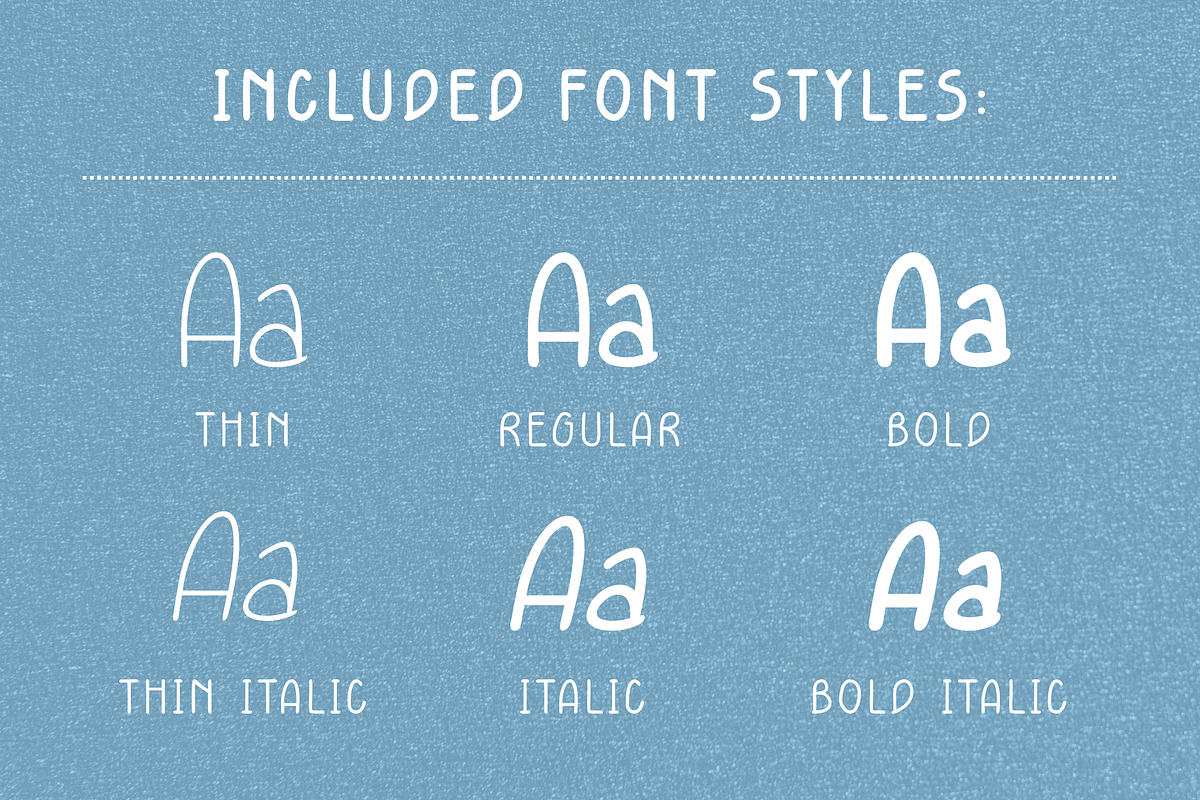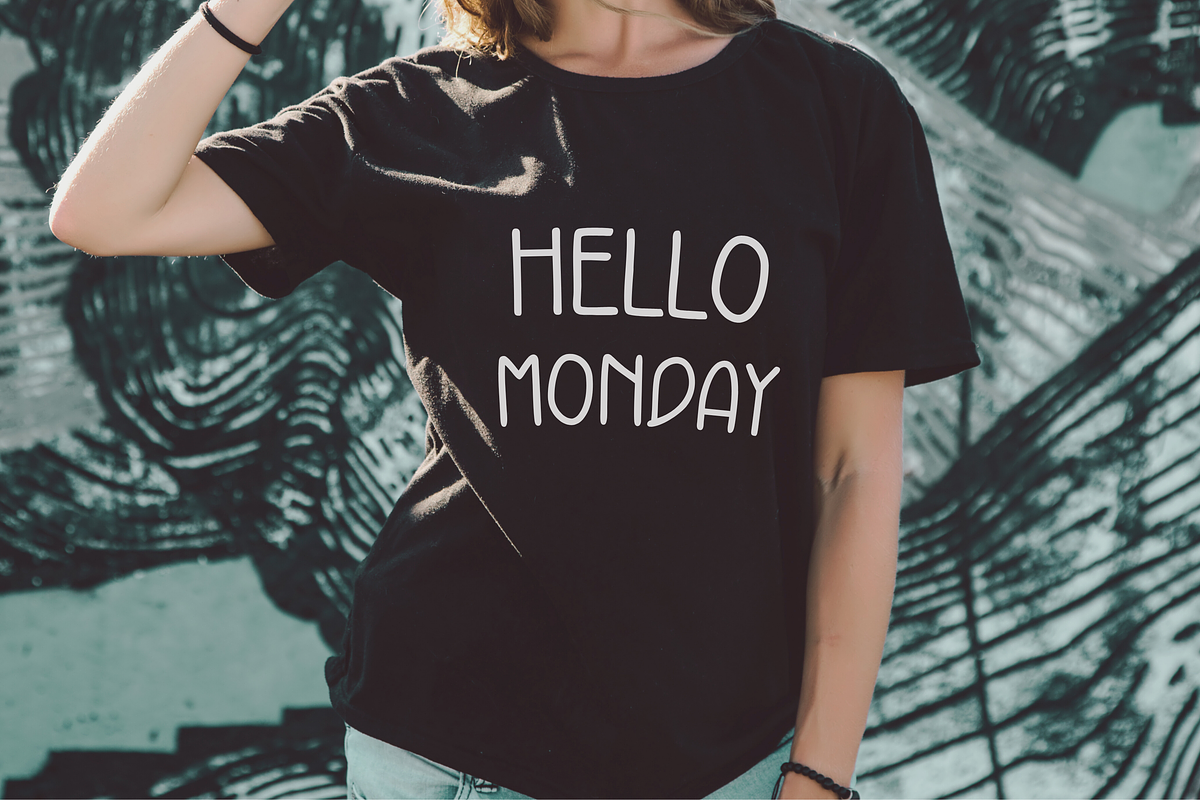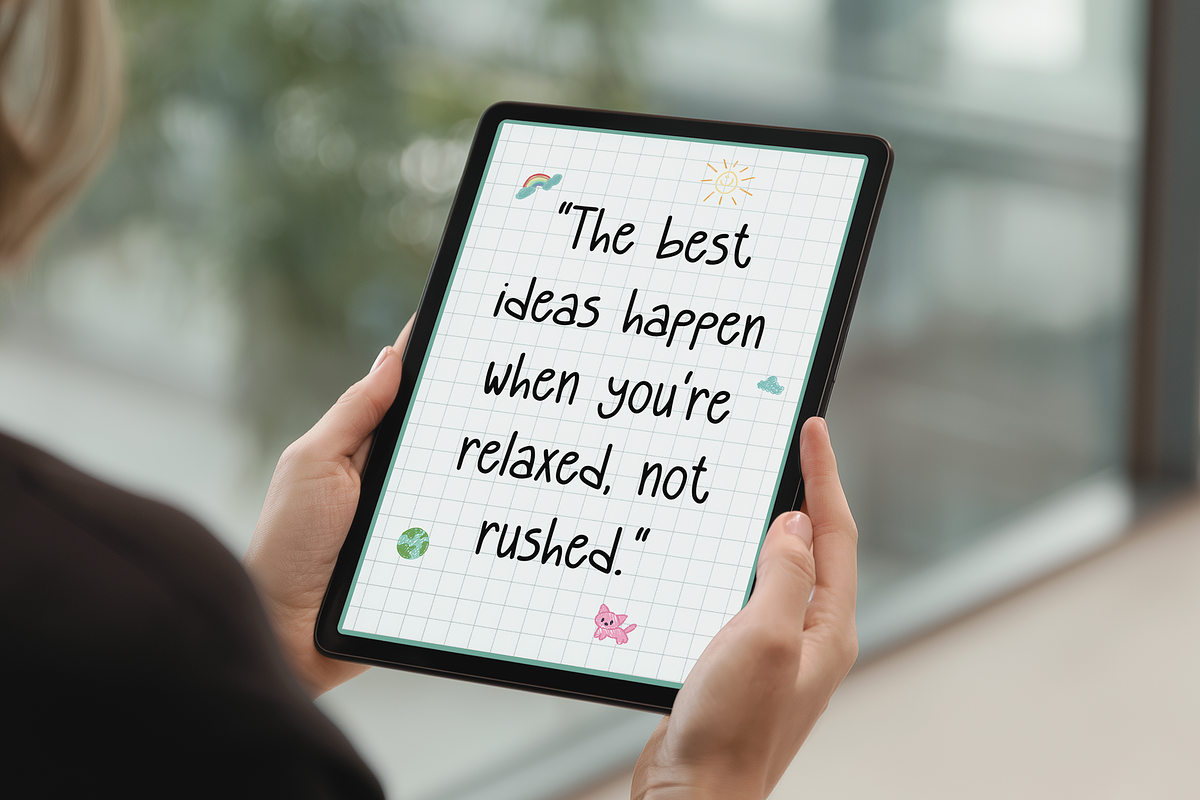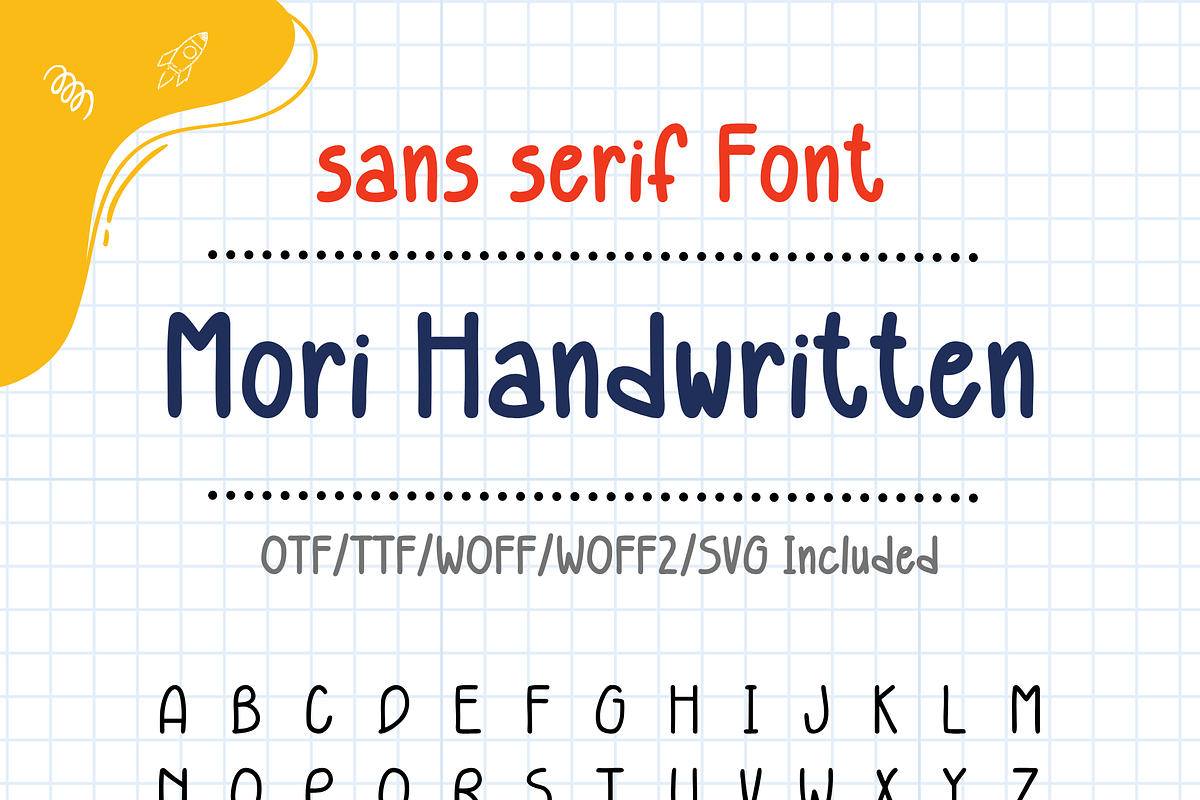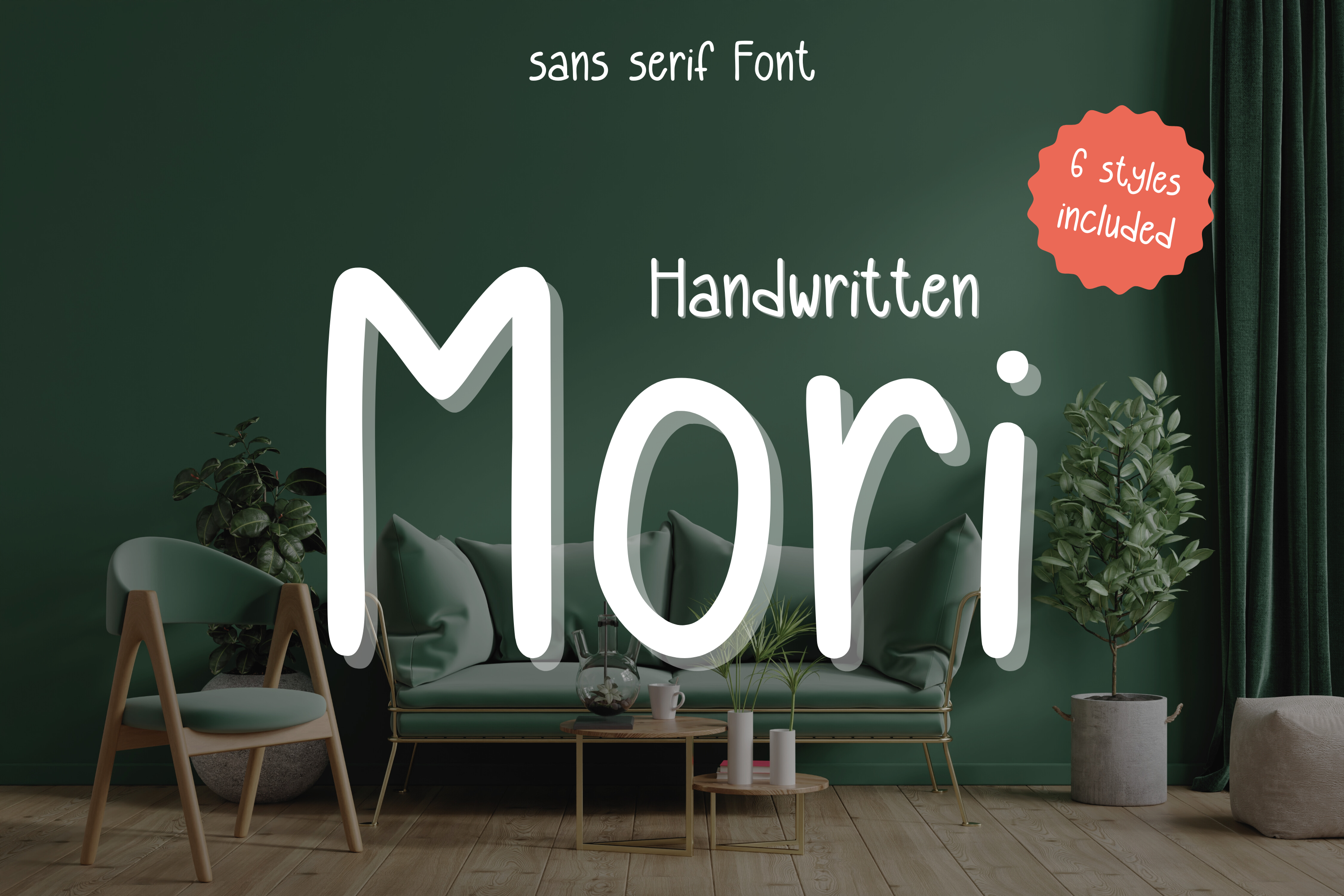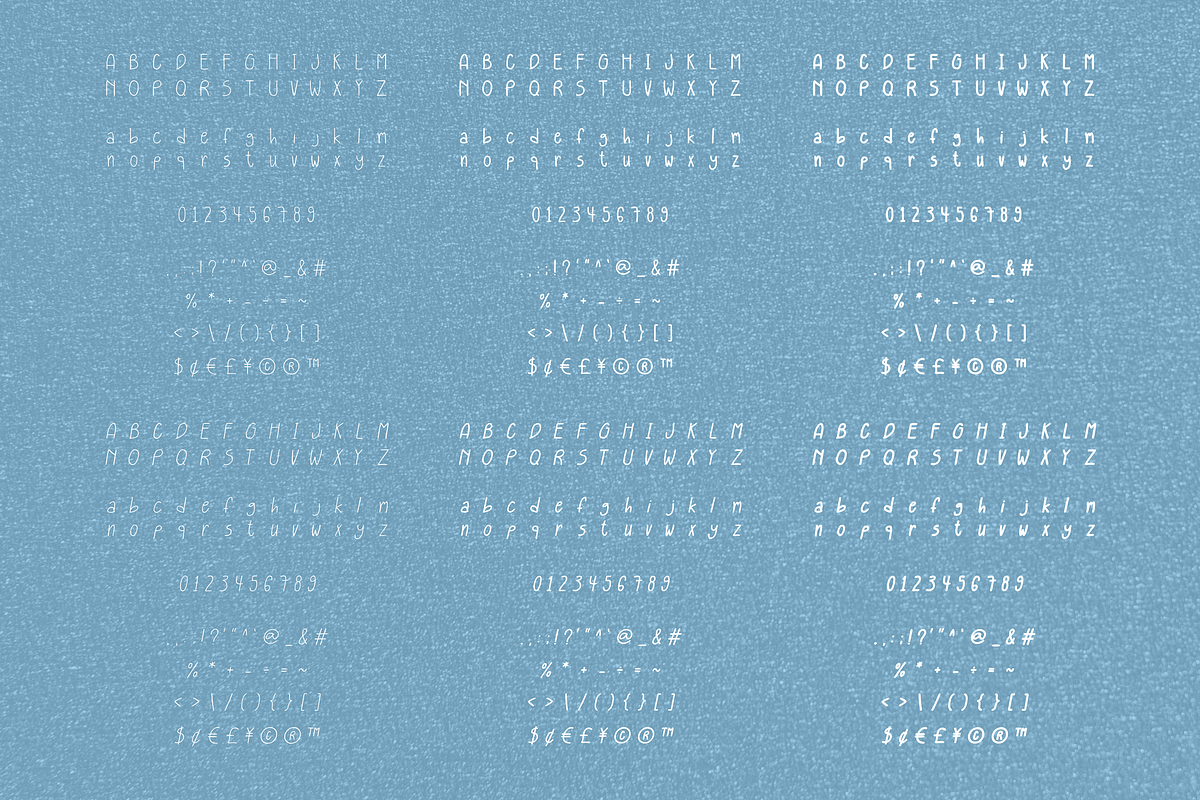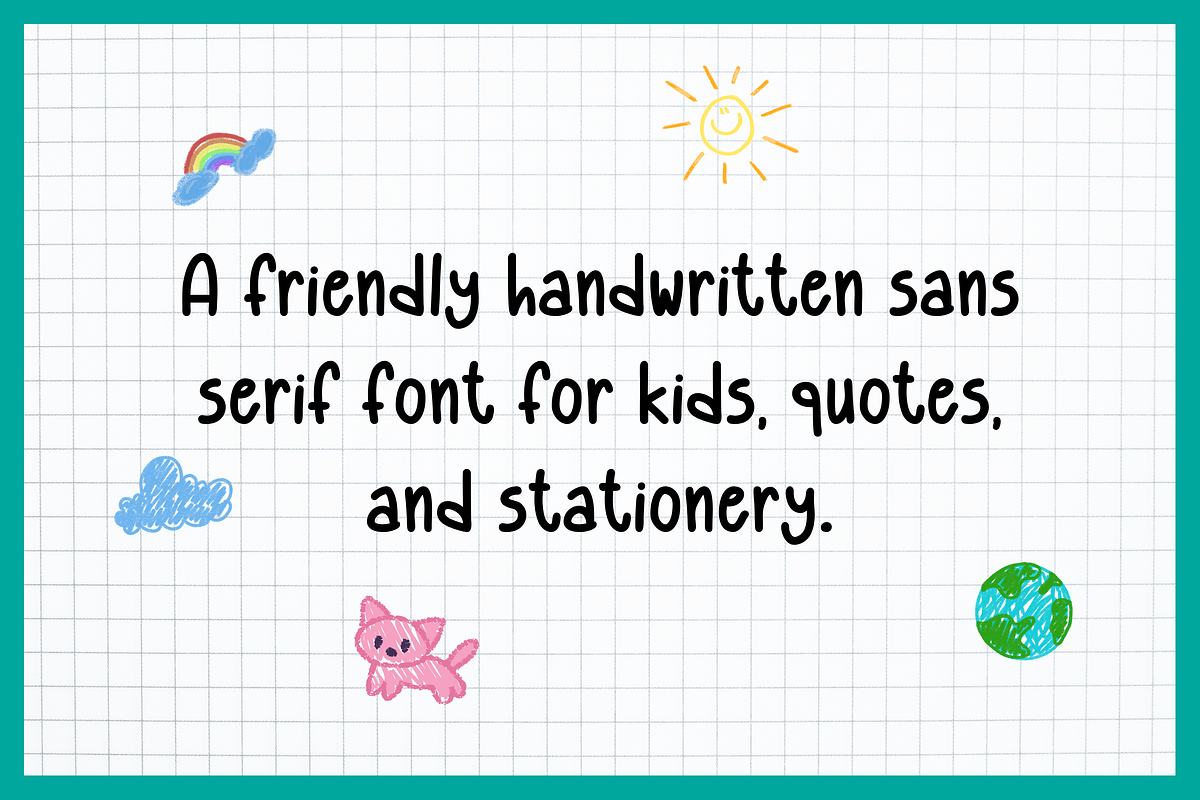
Mori Handwritten Font
Mori Handwritten – A Friendly Sans Serif Font Family! Bring charm and clarity to your designs with Mori Handwritten, a cute and casual handwritten sans serif font perfect for teachers, kids’ projects, and creative crafters! This font family includes 6 versatile styles to match any mood or material.